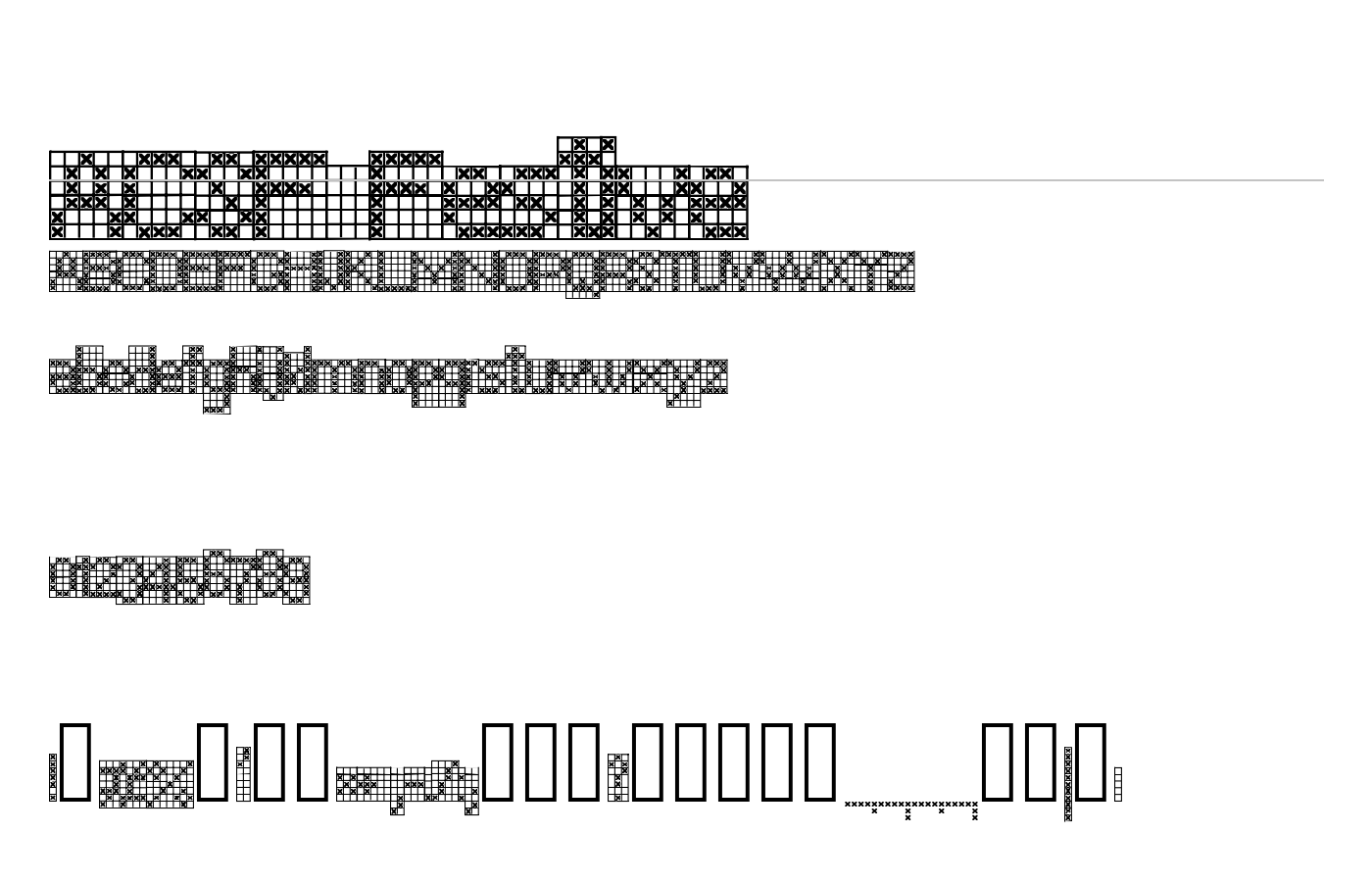
ACSF Festive is a playful, pixel-art-inspired sans serif font that combines a blocky, grid-based structure with whimsical, cross-stitch-like details. Its regular weight and consistent square proportions give it a charming, handcrafted feel, making it ideal for creative, casual designs like holiday cards, party invitations, and retro-themed posters. This font’s unique style adds a touch of fun and nostalgia while remaining clear and legible in display sizes.
ACSF Festive Font
About ACSF Festive Font